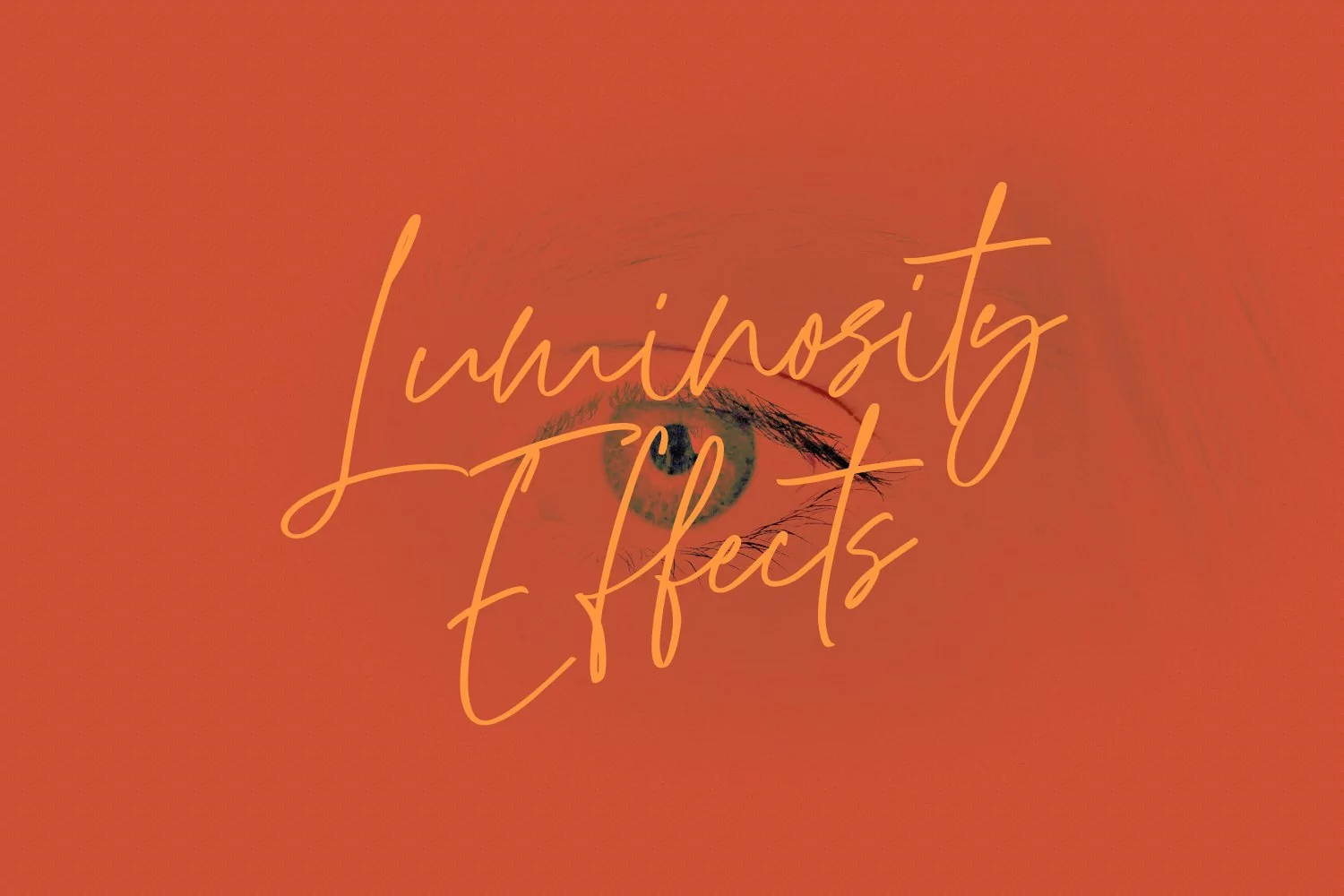
Monkeystand is casual signature script font, with felt tip stroke, slanted and fun character. It has Opentype features ligatures of character, To give you an extra creative work. Monkeystand font support multilingual more than 100+ language. This font is good for logo design, Social media, Movie Titles, Books Titles, a short text even a long text letter and good for your secondary text font with sans or serif. Make a stunning work with Monkeystand font.